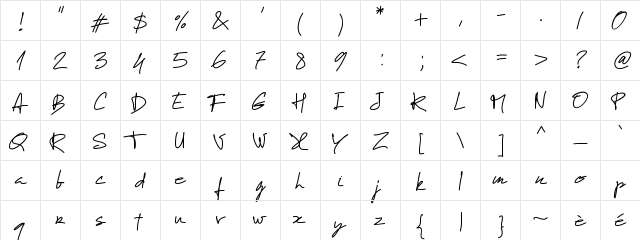
Complete PWManuelfree Medium glyph index. Displaying only characters natively supported by PWManuelfree Medium font.
PWManuelfree is a composed and adaptable typeface that performs quietly and consistently across a wide range of design contexts.